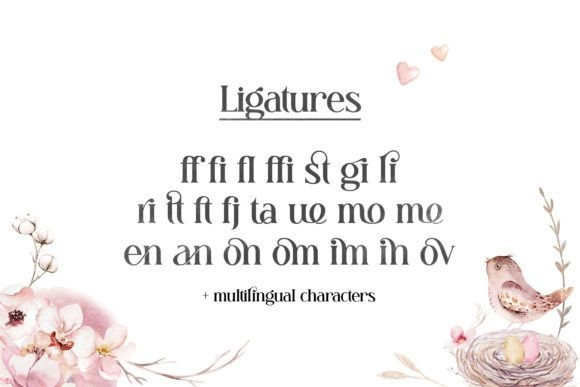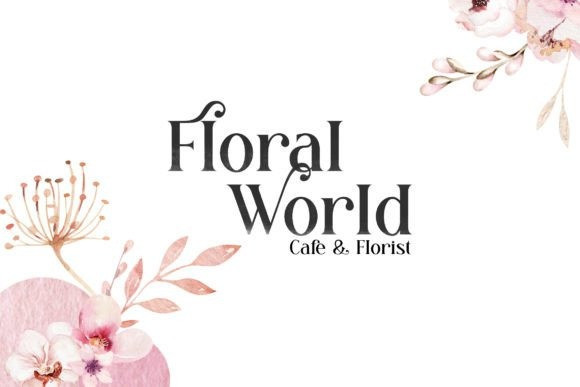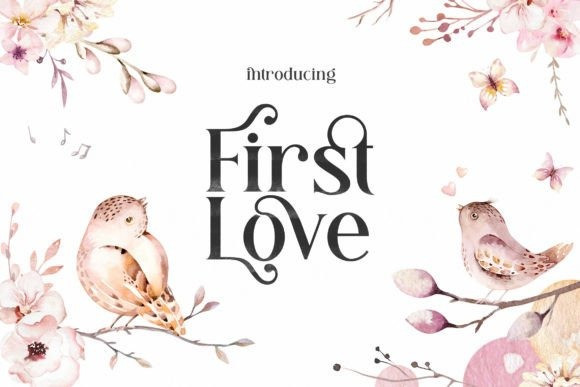
First Love Font
First love Serif Font is a sleek and elegant font with modern serifs. Ideal for titles, headlines, and short phrases, this font adds a touch of sophistication to any design project. Use it to add a touch of contemporary style to your work. This font is PUA encoded which means you can access all glyphs and swashes freely!